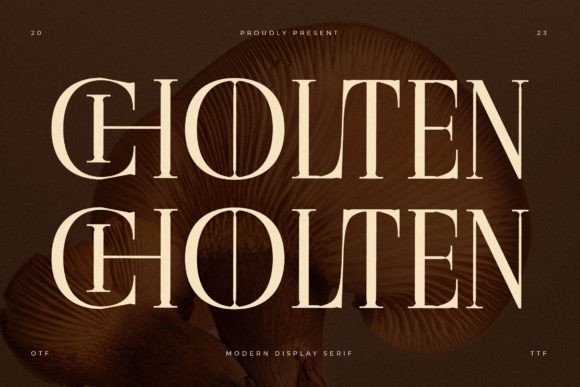
Introducing Cholten Font, the epitome of modern elegance and timeless charm. Crafted by the renowned Storytype Studio, this serif typeface is perfect for those seeking the best font for a love poem or any other creative endeavor. With its unique style and contemporary appeal, Cholten is bound to captivate your imagination and leave a lasting impression.
Embrace the allure of Cholten as it effortlessly elevates your design projects to new heights. Whether you're creating a luxurious logo, designing a mesmerizing book cover, or crafting a captivating movie title, this font is your ultimate companion. Its refined and sophisticated design adds a touch of class that resonates with your audience, making your brand or project stand out from the crowd.
Imagine the possibilities with Cholten. Its sleek and graceful strokes effortlessly convey a sense of opulence and refinement. Let your fashion brand shine with a logo that exudes elegance, or adorn your magazine layouts with a font that whispers sophistication. Cholten is the secret ingredient that elevates your creative vision and brings it to life.
But Cholten doesn't stop there. Its versatility knows no bounds. From stylish clothes to inspiring lettering and memorable quotes, this font adapts effortlessly to any context. Its timeless appeal makes it the perfect choice for a wide range of applications, ensuring that your message is delivered with utmost clarity and impact.
What sets Cholten apart is not just its aesthetics, but the emotions it evokes. As you dive into its graceful curves and intricate details, you'll feel a sense of enchantment and wonder. The way the letters flow seamlessly together creates a harmonious rhythm that resonates with the soul of your audience. It's the perfect harmony between modernity and tradition, creating a captivating visual experience that leaves a lasting impression.